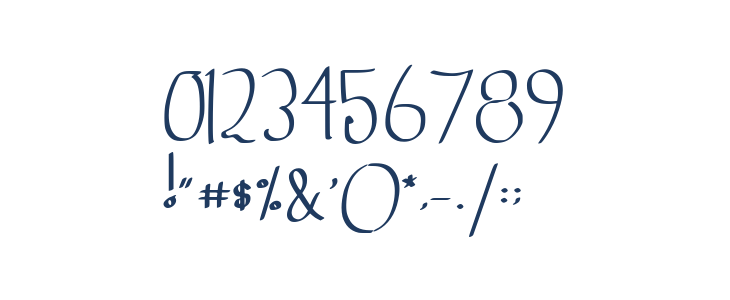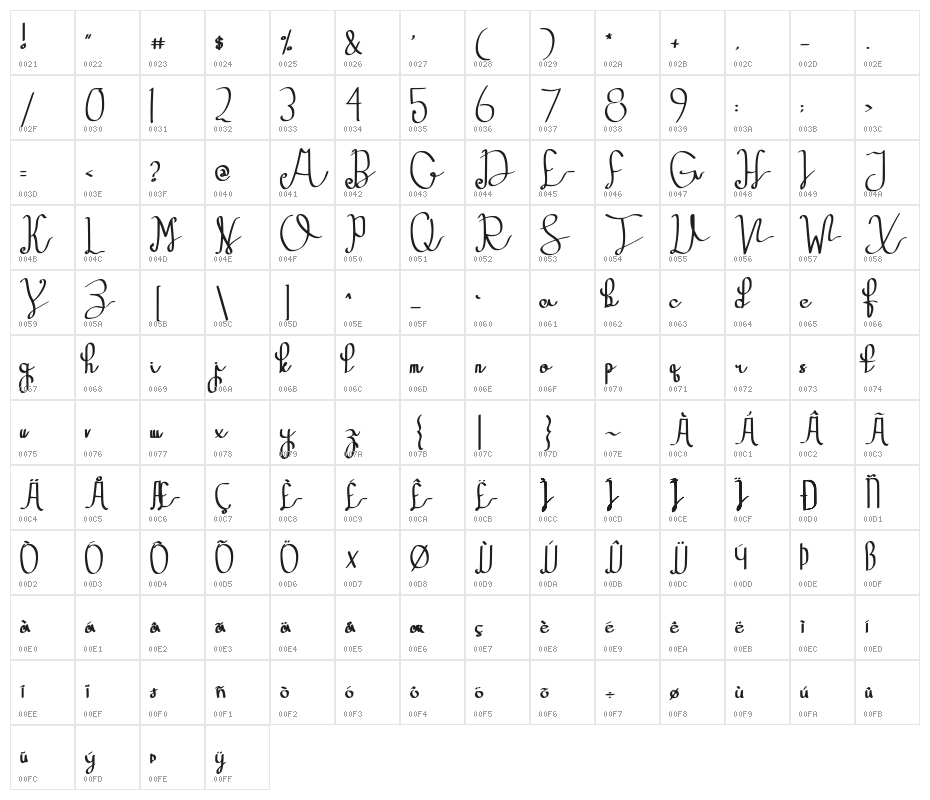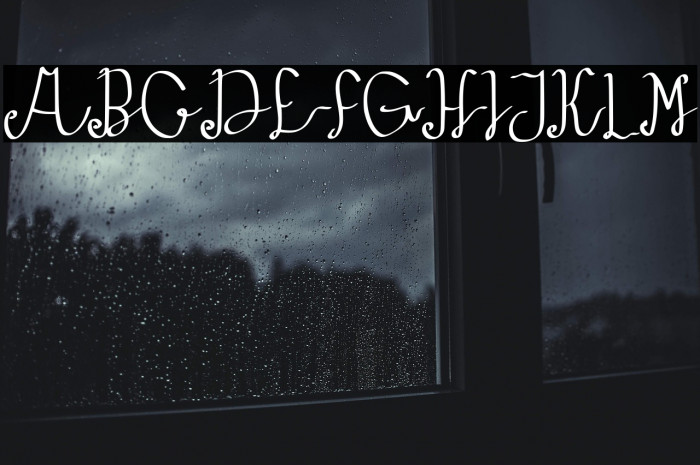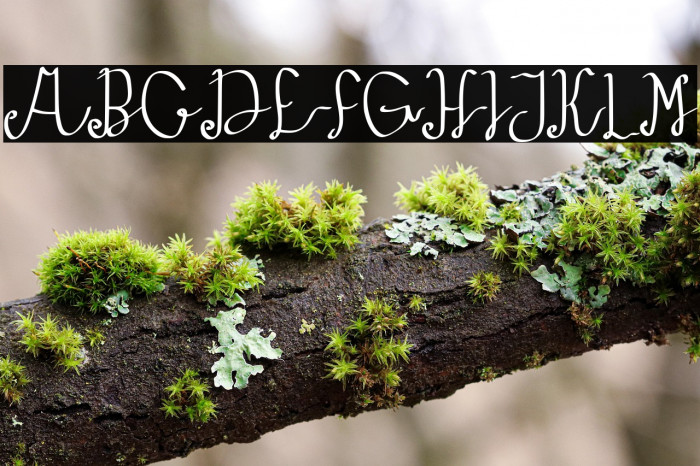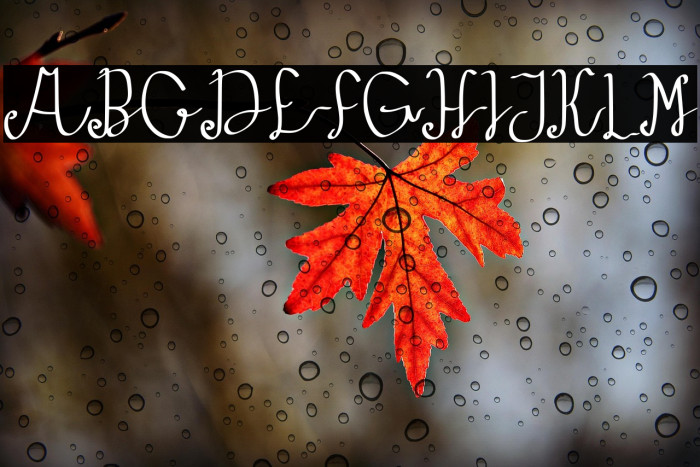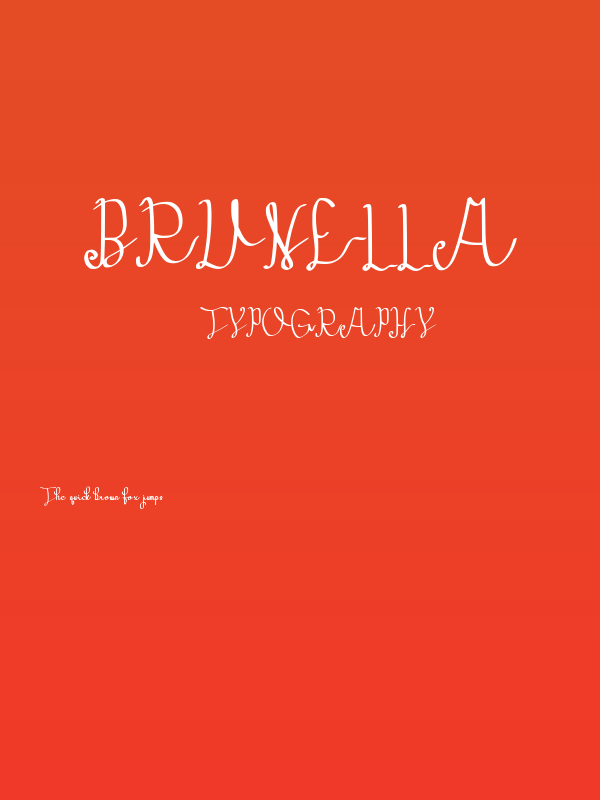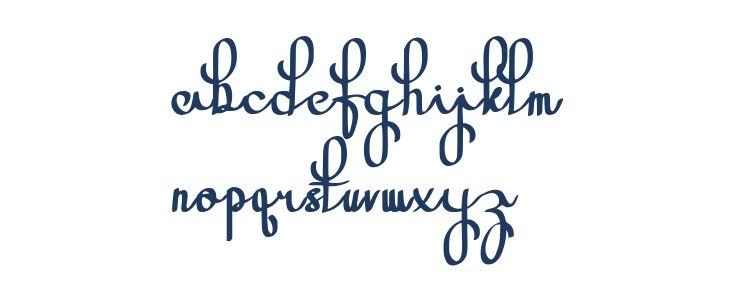
Brunella Font
Brunella Description
This font features an elegant and flowing script style, characterized by its decorative loops and swirls. The uppercase letters are particularly ornate, with each character exhibiting unique flourishes that add a touch of sophistication. The lowercase letters maintain a consistent style, with smooth curves and a slightly playful appearance. Numbers are designed with a similar flair, ensuring they complement the alphabetic characters. Special characters are included, each crafted with the same attention to detail, making them suitable for a variety of design needs. Overall, this font exudes a sense of elegance and creativity, perfect for projects that require a personal and artistic touch.